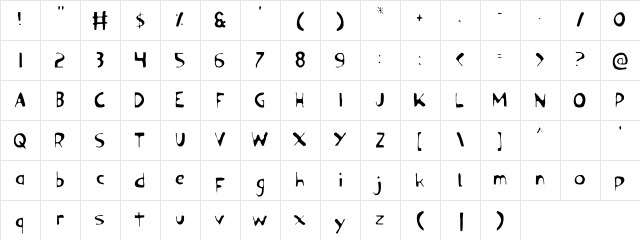
Ozymandias Light Light Font Preview
Ozymandias Light Light
Ozymandias Light Light Font Details
Design Context for Ozymandias Light Typeface
Ozymandias Light is a composed and adaptable typeface that performs quietly and consistently across a wide range of design contexts. The delicate stroke weight brings airiness and refinement to layouts.